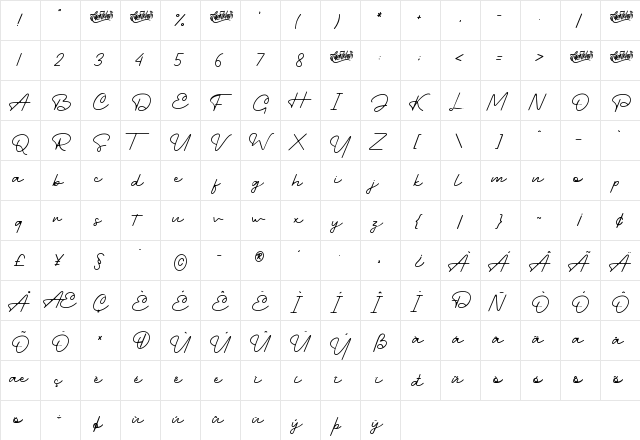
Charlotte Amalie Regular Font Preview
Charlotte Amalie Regular
Charlotte Amalie Regular Font Details
Design Context for Charlotte Amalie Typeface
Charlotte Amalie takes a measured approach to typography — its balanced proportions and neutral character make it a reliable workhorse for both digital and print work.